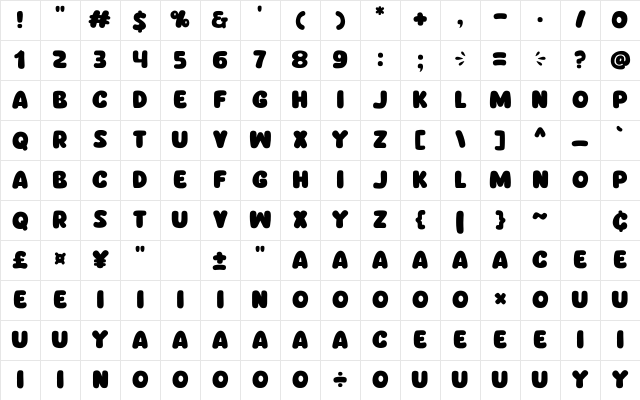
Sobiscuit Regular Free Font
Sobiscuit Regular
Foundry: Khurasan
Designer: Khurasan
Design Context for Sobiscuit
Sobiscuit is a composed and adaptable typeface that performs quietly and consistently across a wide range of design contexts.